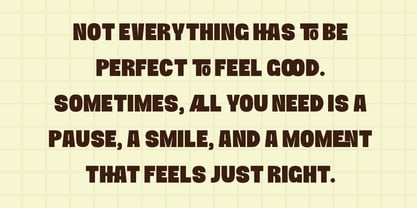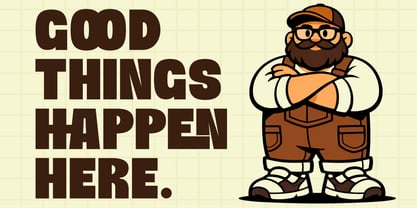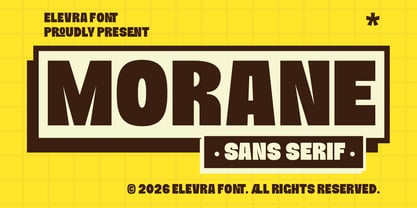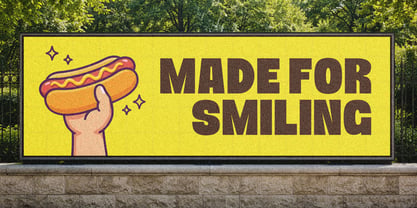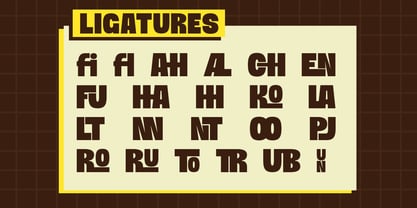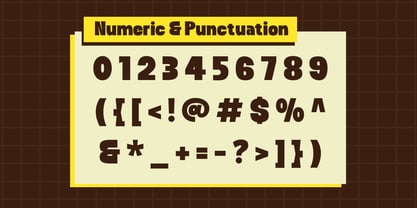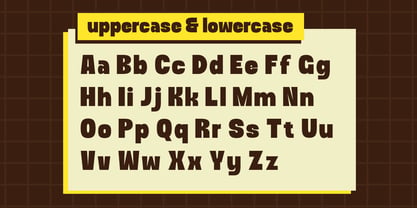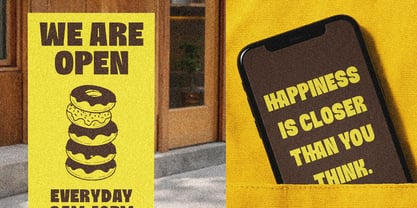
Morane
by Elevra
The Morane Font Family was designed by Wirandi Limansyah Zendrato and published by Elevra. Morane contains 1 styles. More about this family
Morane is a bold sans serif display font built with confidence, warmth, and personality. Its chunky letterforms, soft curves, and solid proportions create a friendly yet powerful visual tone that instantly grabs attention without feeling aggressive. Inspired by retro signage and modern branding aesthetics, Morane balances bold structure with human touches, making it highly readable and visually engaging. The font works beautifully in both uppercase and lowercase, maintaining consistency and charm across different layouts. Morane is ideal for branding, posters, packaging, headlines, social media graphics, and editorial layouts. Whether you’re designing something playful, motivational, or bold and confident, Morane delivers clarity and character in every word. This font is made for designers who want typography that feels strong, positive, and approachable perfect for designs that aim to connect, not intimidate.
Designers: Wirandi Limansyah Zendrato
Foundry: Elevra